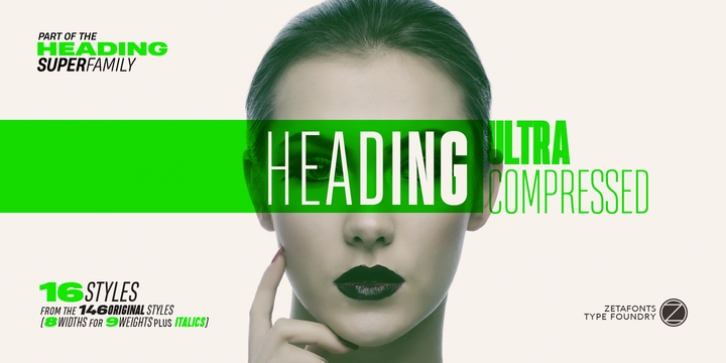
Publisher: Zetafonts
Heading Pro Ultra Compressed was designed by Francesco Canovaro and published by Zetafonts. Heading Pro Ultra Compressed contains 16 styles and family package options.
HEADING PRO ULTRA COMPRESSED is a variant of the original HEADING PRO typeface designed by Francesco Canovaro for Zetafonts.
Each Heading Pro typeface includes over 800 characters with coverage for 100+ languages using latin, cyrillic and greek alphabets. A full array of open-type features is included in each weight including stylistic alternates, small caps, old-style and tabular numerals and positional figures.
The full Heading Pro Super Family includes, Heading Ultra Compressed, Heading Pro, Heading Pro Text and Heading Pro Extended for a grand total of 146 FONTS built around 8 different widths from ultra-compressed to ultra-wide and 9 weights from thin to black, providing a wide spectrum of sans serif type solutions to your design problems.